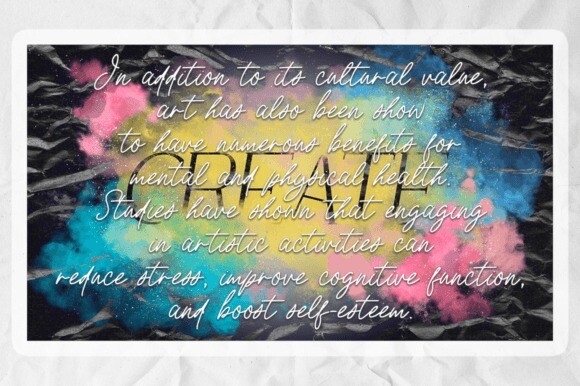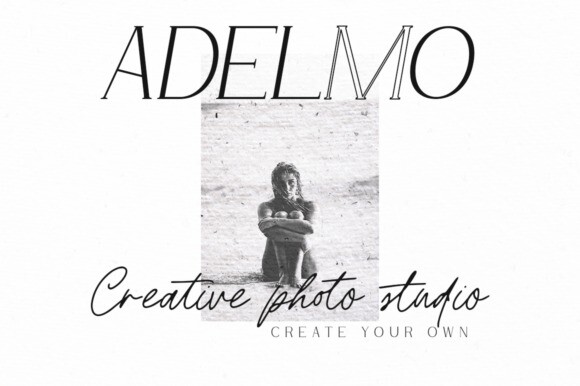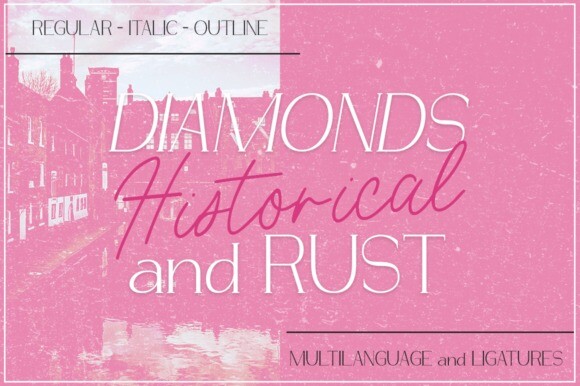
Diamonds and Rust Historical Font
Diamonds and Rust Historical Font a new fresh handmade calligraphy font.
Suitable for greeting cards, branding materials, business cards, quotes, posters, and more! This font is perfect for wedding postcards. Or you can create perfect and unique designs for your logo, blog, stationery, marketing, magazines, and more.